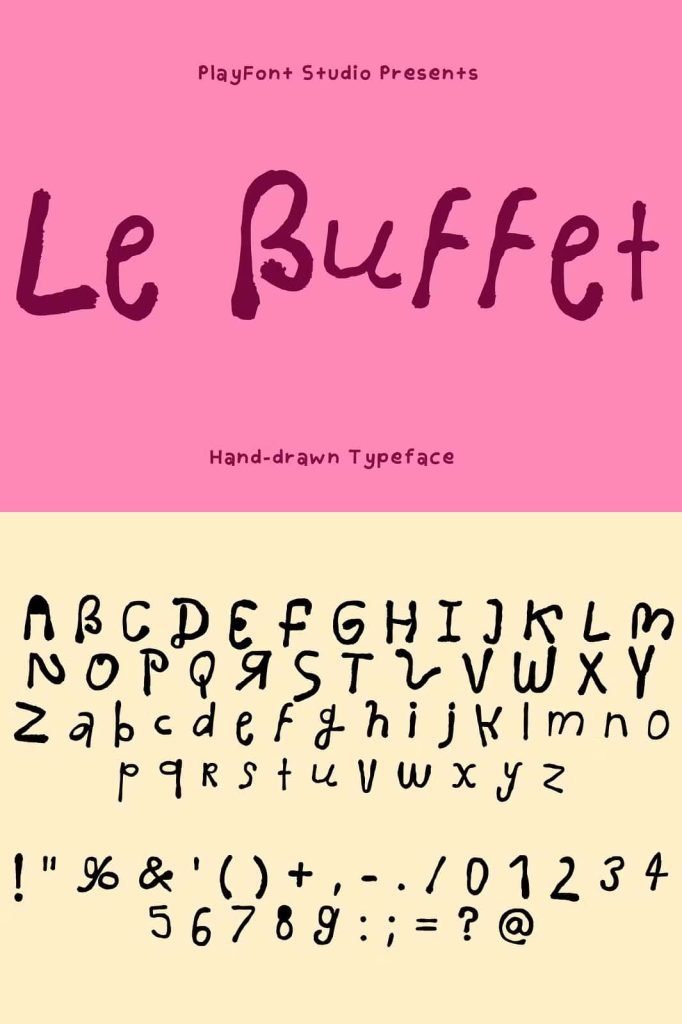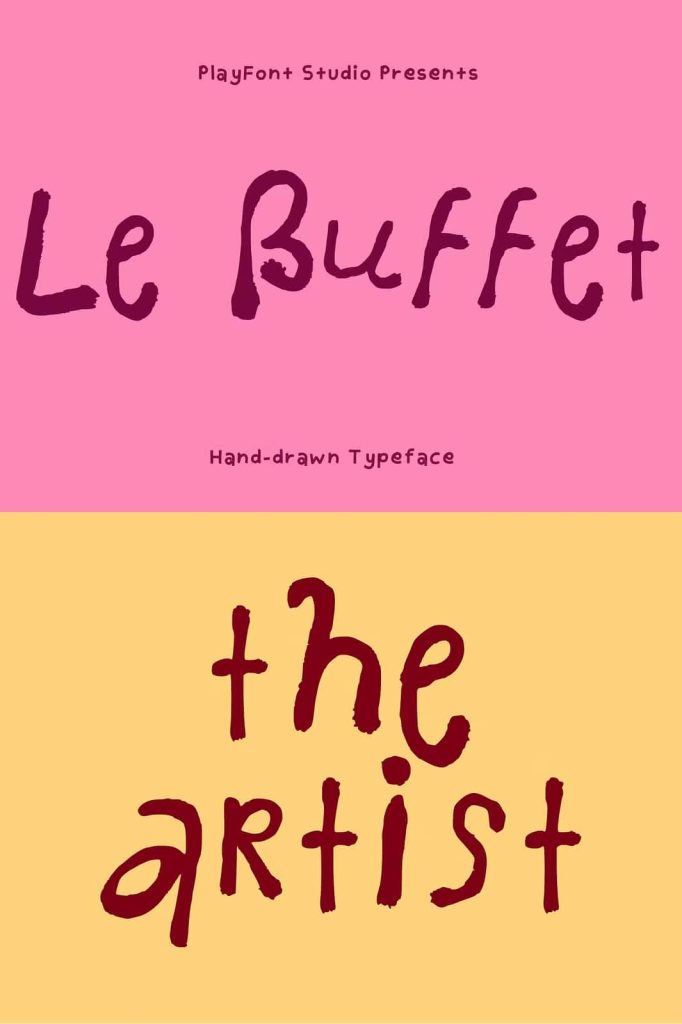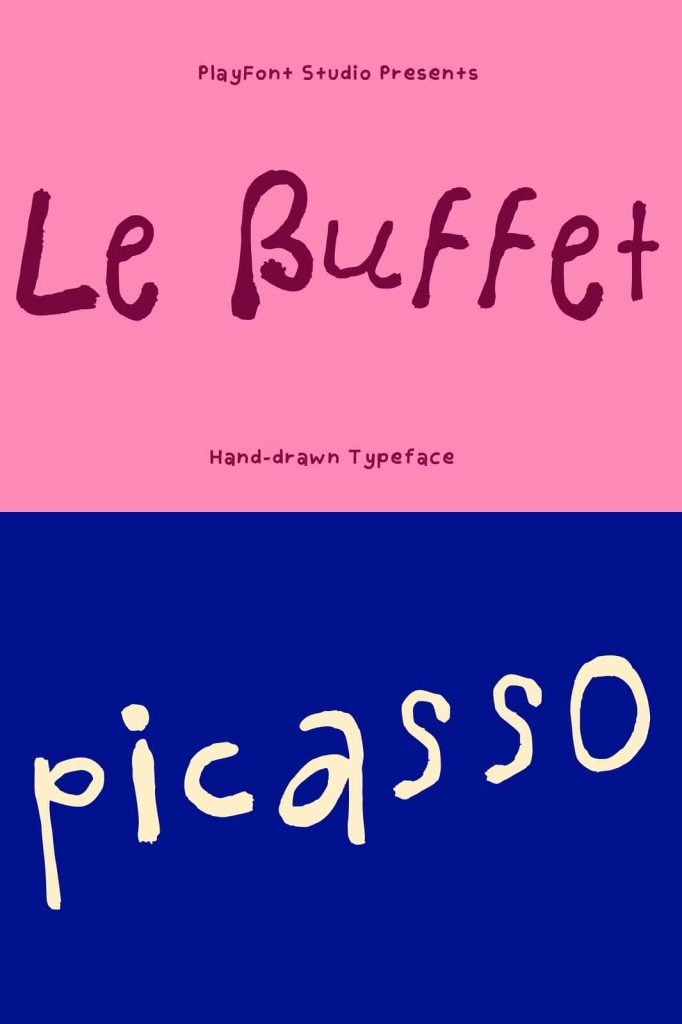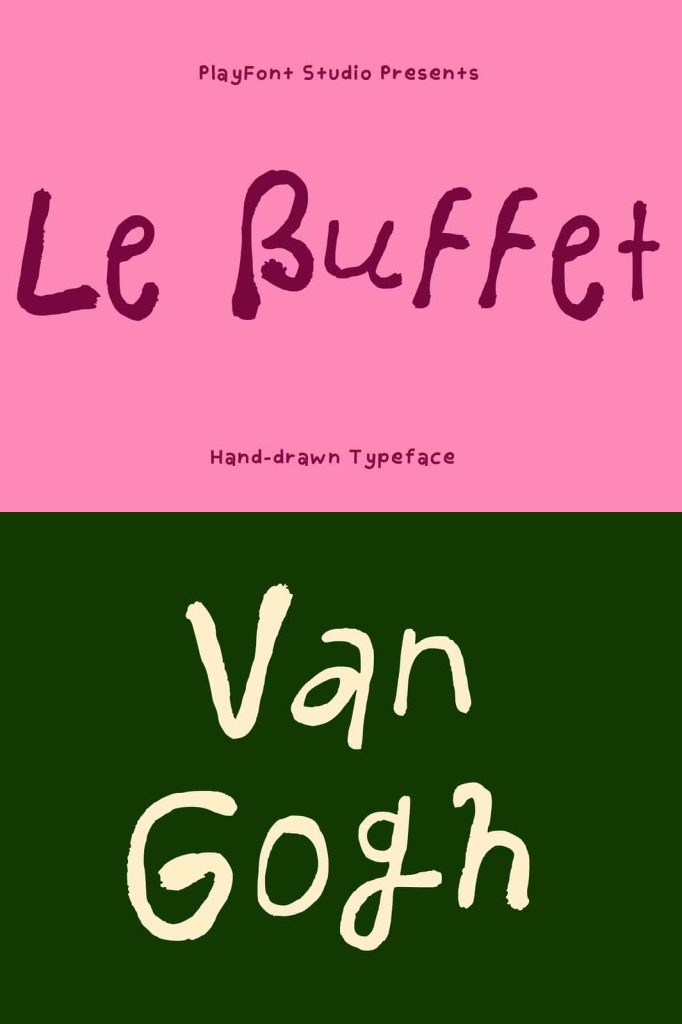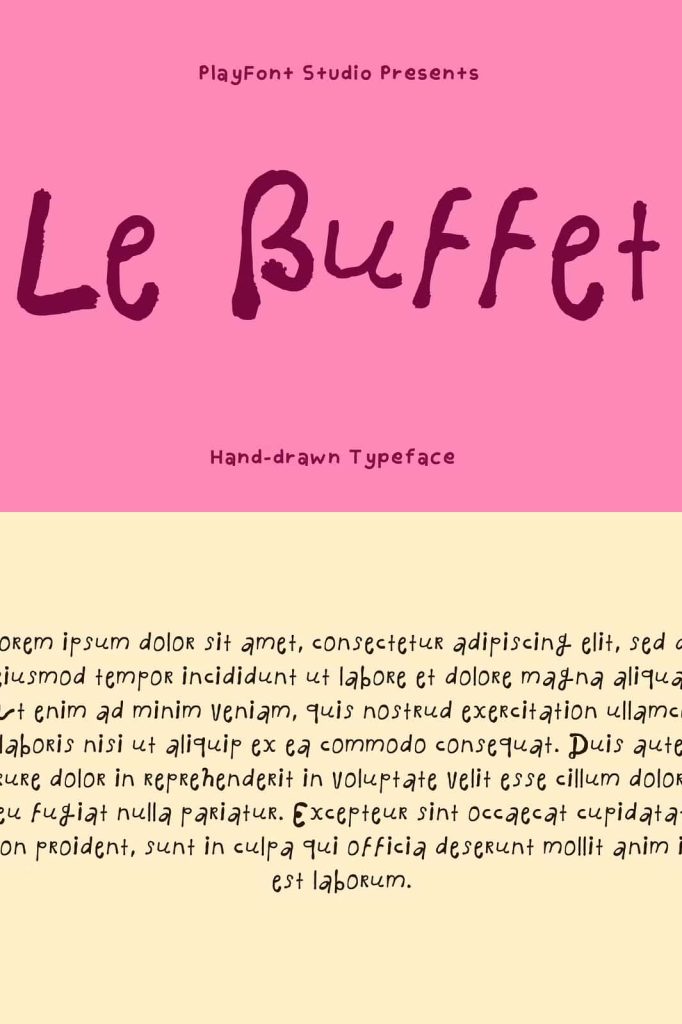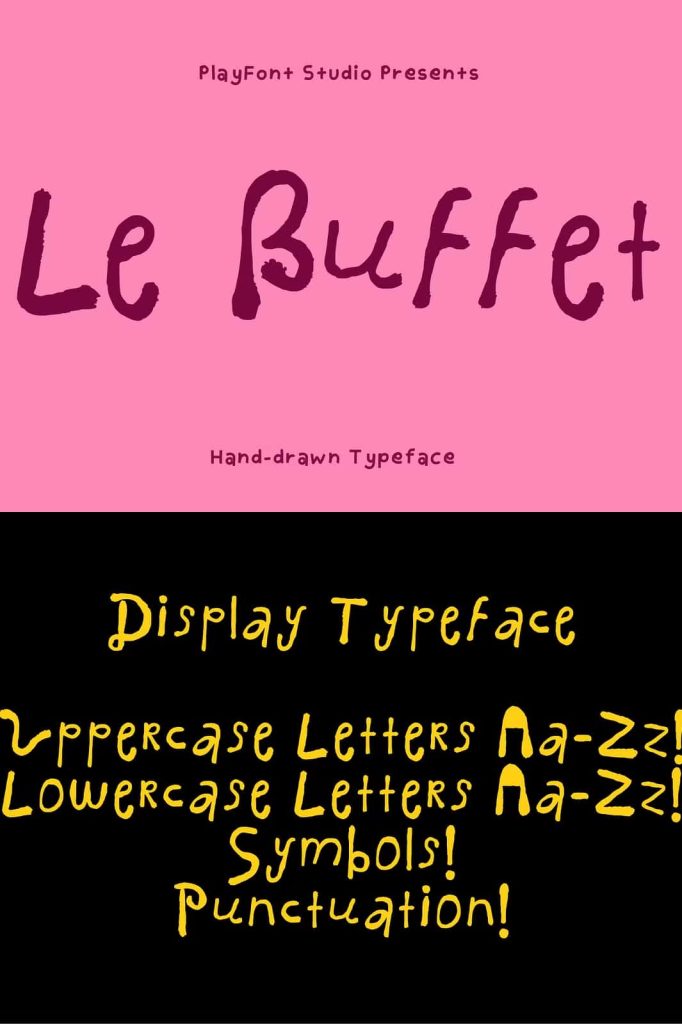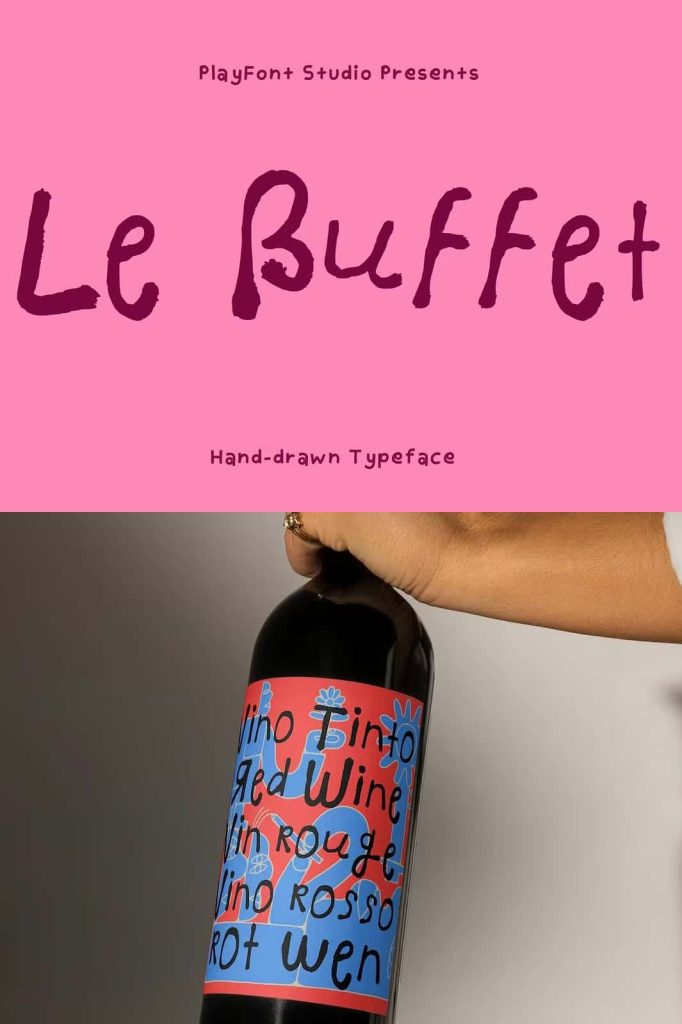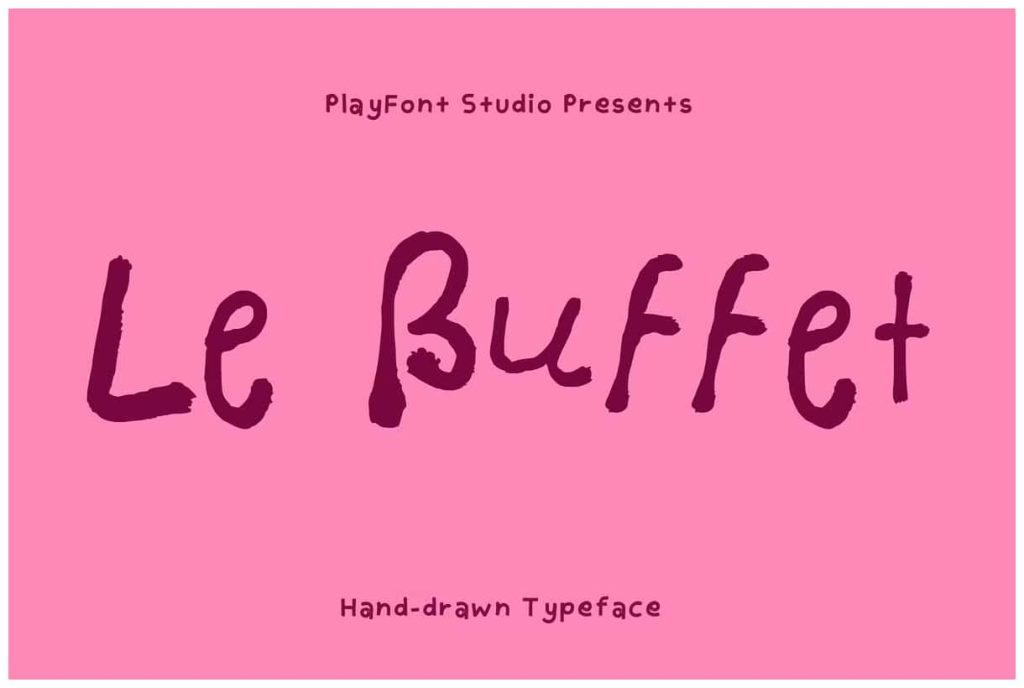
Le Buffet – A Hand-drawn TypefaceleastedMay 3, 2025Fonts Introducing Le Buffet, a font that is inspired by old artist’s signatures from Picasso to Van Gogh. Download